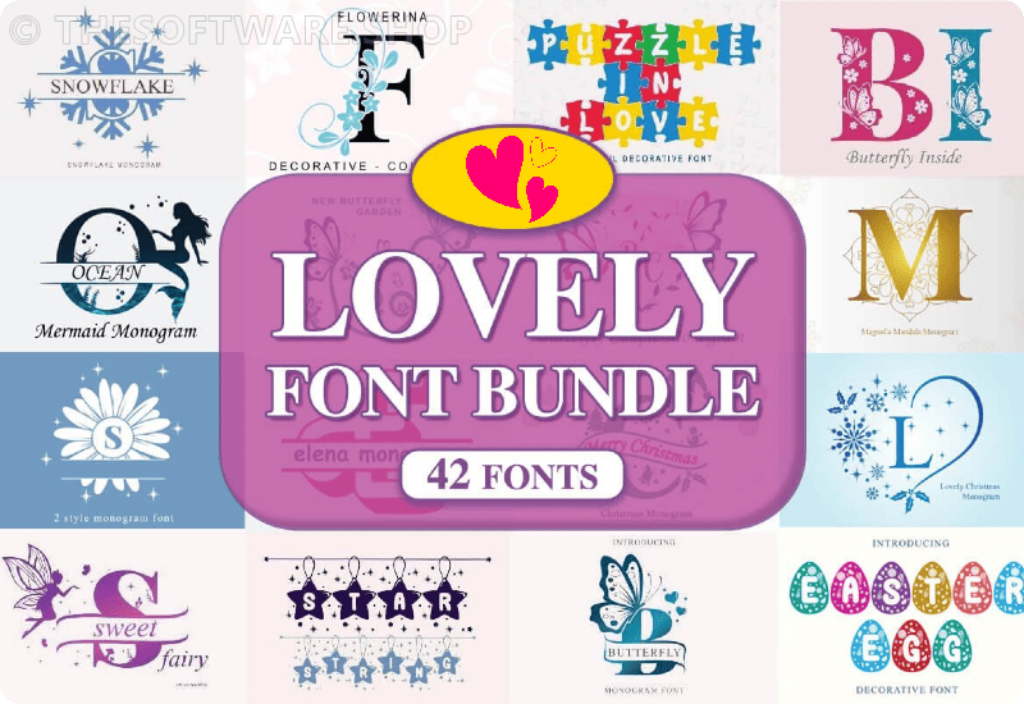
Discover the Elegance and Versatility of 42 Premium Decorative Fonts
Imagine adding a touch of elegance with Mariana Decorative Font or capturing the essence of springtime bliss with Butterfly Inside Decorative Font. With 42 unique fonts at your fingertips, the possibilities are endless.
Discover a world of creativity with fonts like Jolie, exuding sophistication, or Hi Daisy, radiating playful energy. Whether you’re celebrating love with Heart Beat Love Decorative Font or embracing the whimsical with The Unicorn Monogram Decorative Font, there’s something for every project and every mood.
42 Premium Fonts by Suse Creative are included in this bundle:
- Mariana Decorative Font
- Graduation Monogram Decorative Font
- Butterfly Monogra Decorative Font
- Puzzle in Love Decorative Font
- Butterfly Inside Decorative Font
- Ocean Mermaid Monogram Decorative Font
- Heart Beat Love Decorative Font
- Star String Decorative Font
- Rosera Monogram Decorative Font
- Sweet Fairy Monogram Dekorative Schriftarten Schriftart
- Flowerina Decorative Font
- The Unicorn Monogram Decorative Font
- New Butterfly Garden Monogram Decorative Font
- Jolie Decorative Font
- Hi Daisy Decorative Font
- Love Unicorn Monogram Font Decorativi Font
- Alloween Decorative Font
- Lovely Christmas Decorative Font
- Decora Dekorative Schriftarten Schriftart
- Nurse Monogram Color Fonts Font
- Mother Love Decorative Font
- Easter Egg Decorative Font
- Love Link Decorative Font
- Butterfly Couple Monogram Decorative Font
- Love Valentine Monogram Decorative Font
- High Five Decorative Font
- Autumn Monogram Decorative Font
- Bellerina Monogram Fuentes Decorativas Fuente
- Starlight Dekorative Schriftarten Schriftart
- Love Heart Monogram Decorative Font
- Sparkling Daisy Monogram Decorative Font
- Spooky Inside Decorative Font
- Fall in Love Decorative Font
- The Grinch Santa Color Fonts Font
- Couple Heart Fontes Decorative Fonte
- Christmas Decorative Font
- Valentina Monogram Polices Décoratives Police
- Lovely Arrow Monogram Decorative Font
- Monsterana Decorative Font
- Magnolia Mandala Monogram Decorative Font
- Mapleaf Decorative Font
- Elena Monogram Decorative Font
Let your creativity bloom with fonts like Magnolia Mandala Monogram Decorative Font, infusing your designs with intricate floral patterns, or spark joy with Star String Decorative Font, sprinkling a dash of magic into your work.
Embrace Springtime Splendor
As nature blossoms around us, embrace the spirit of renewal and growth in your projects. With the Lovely Font Bundle, you’re not just getting fonts; you’re getting a tool to infuse your creations with warmth, charm, and character.